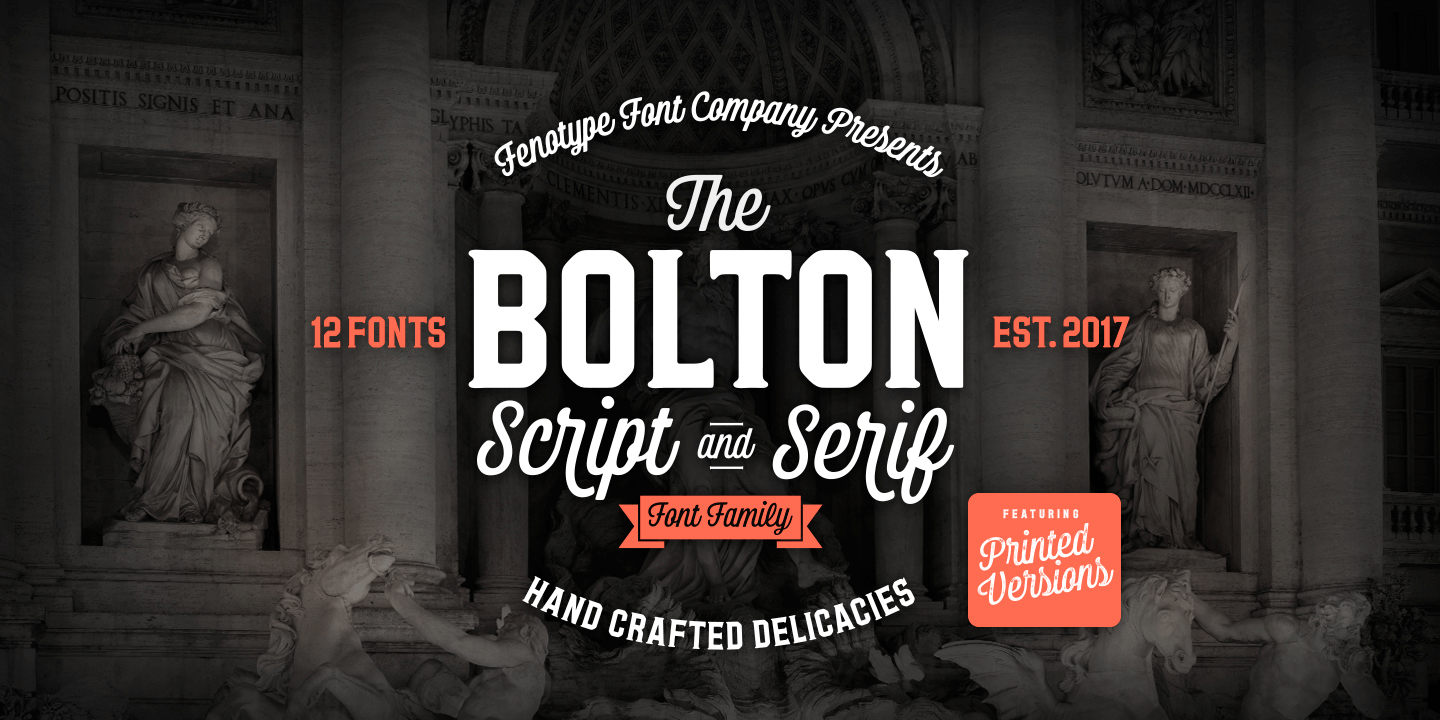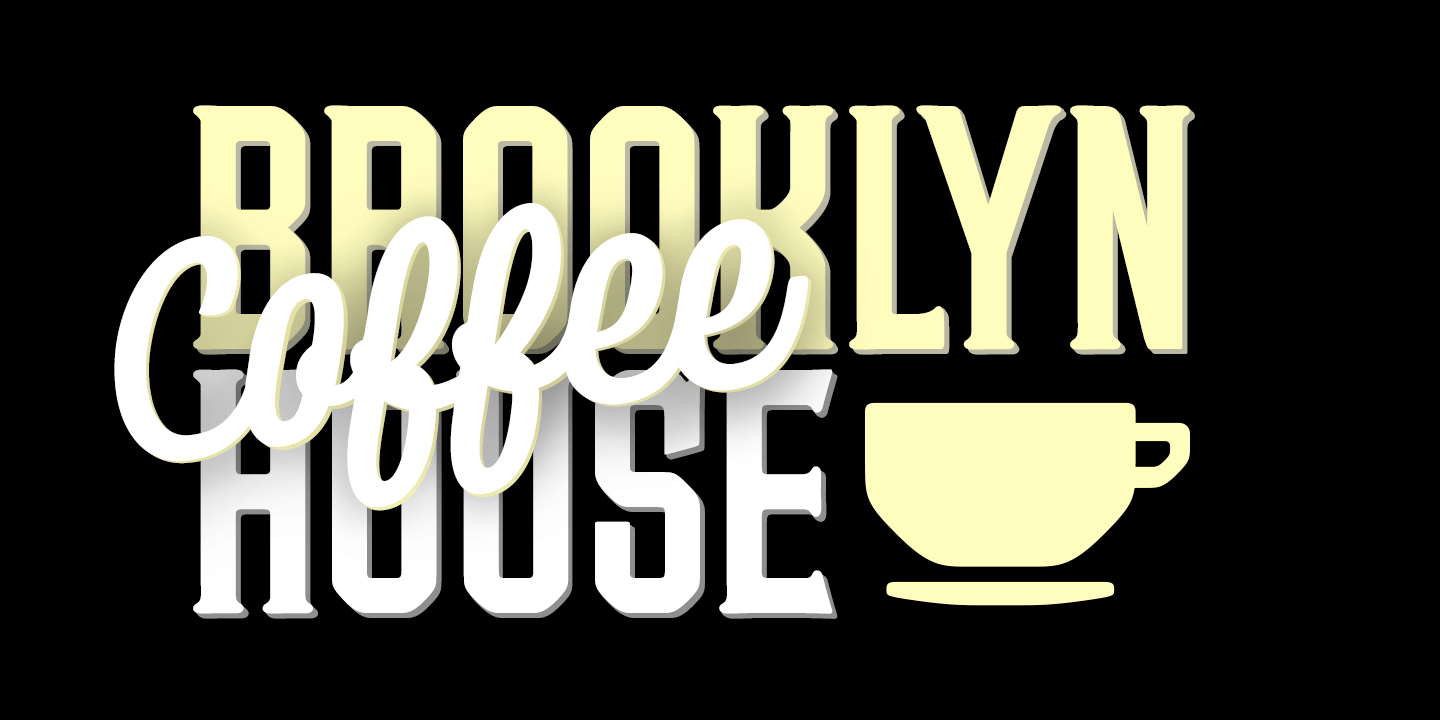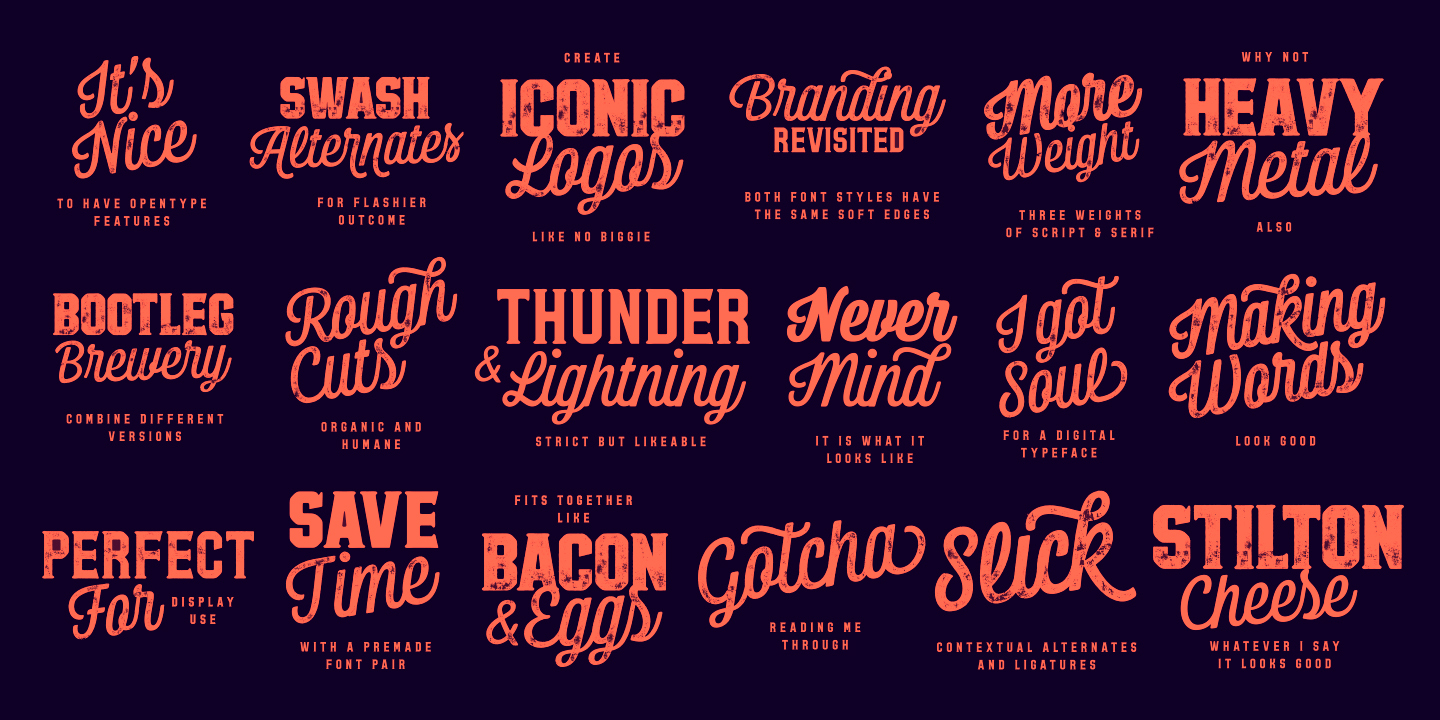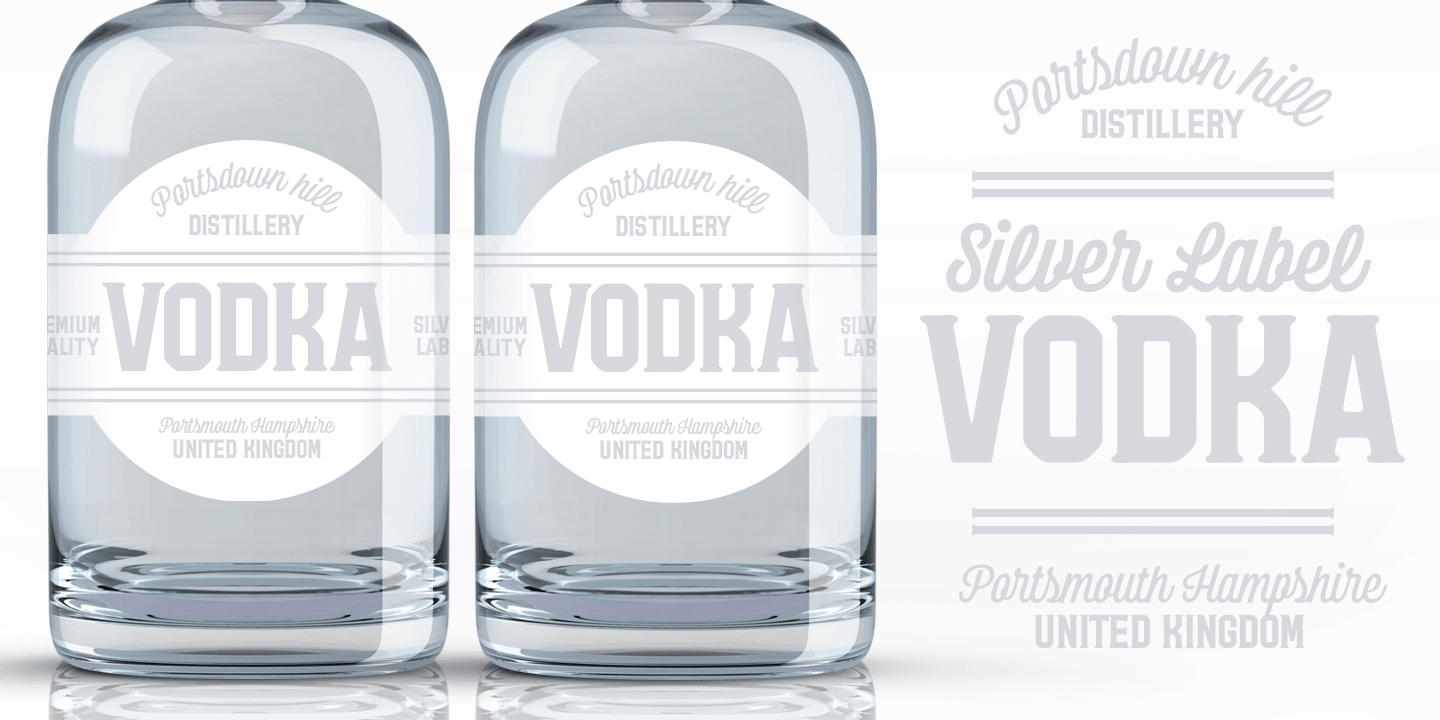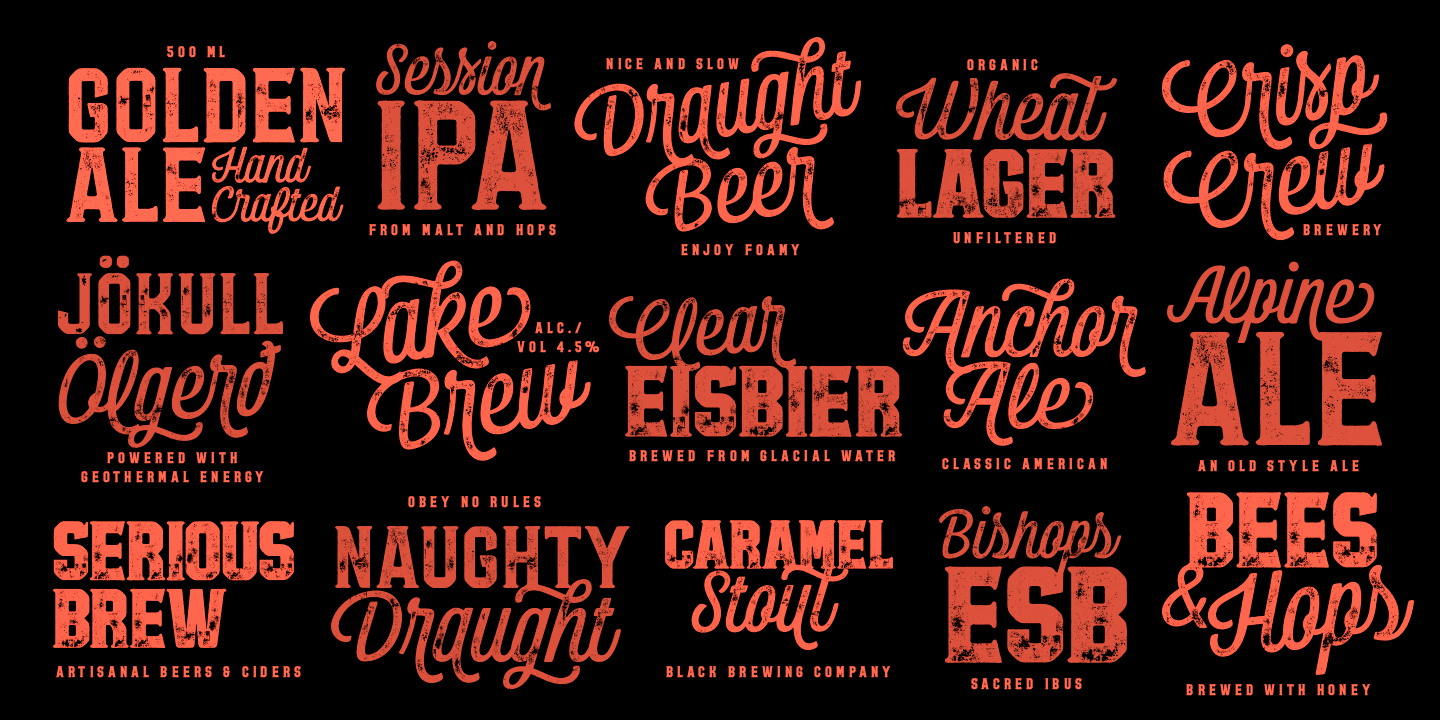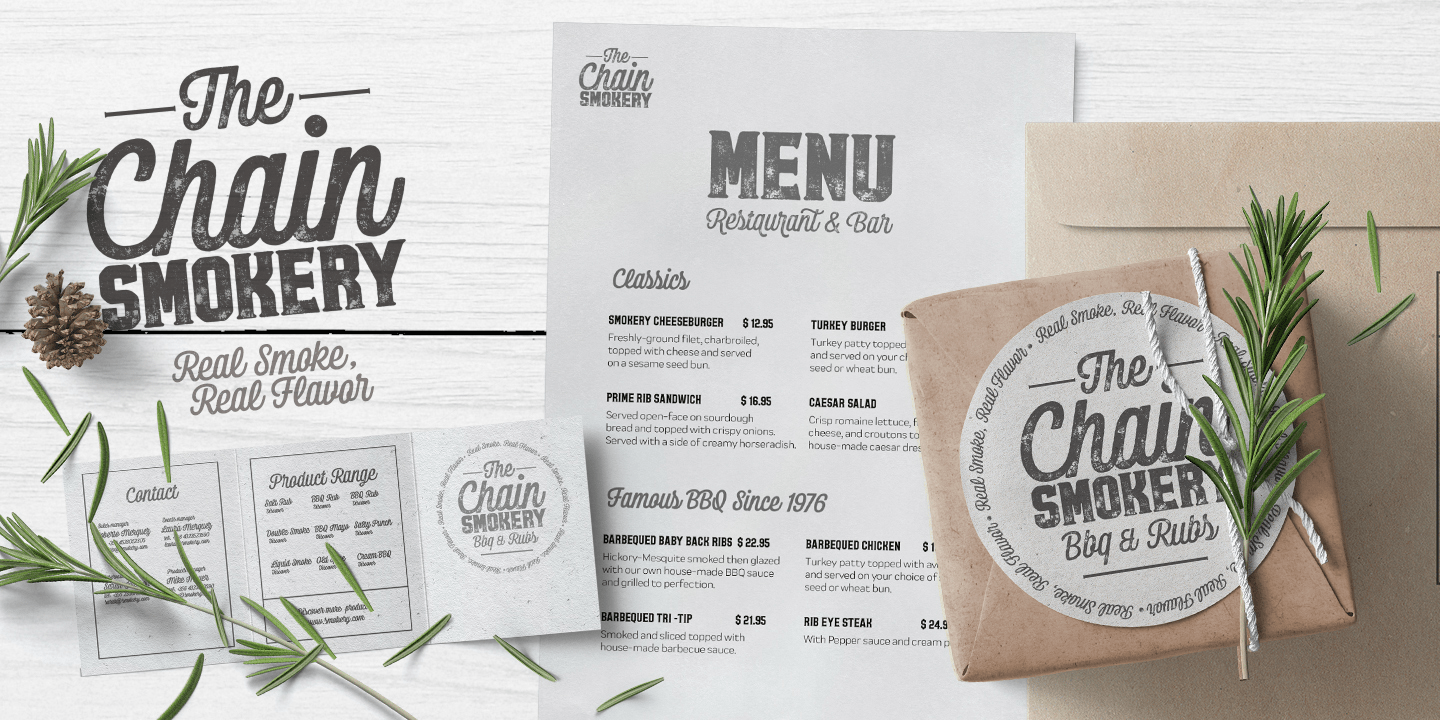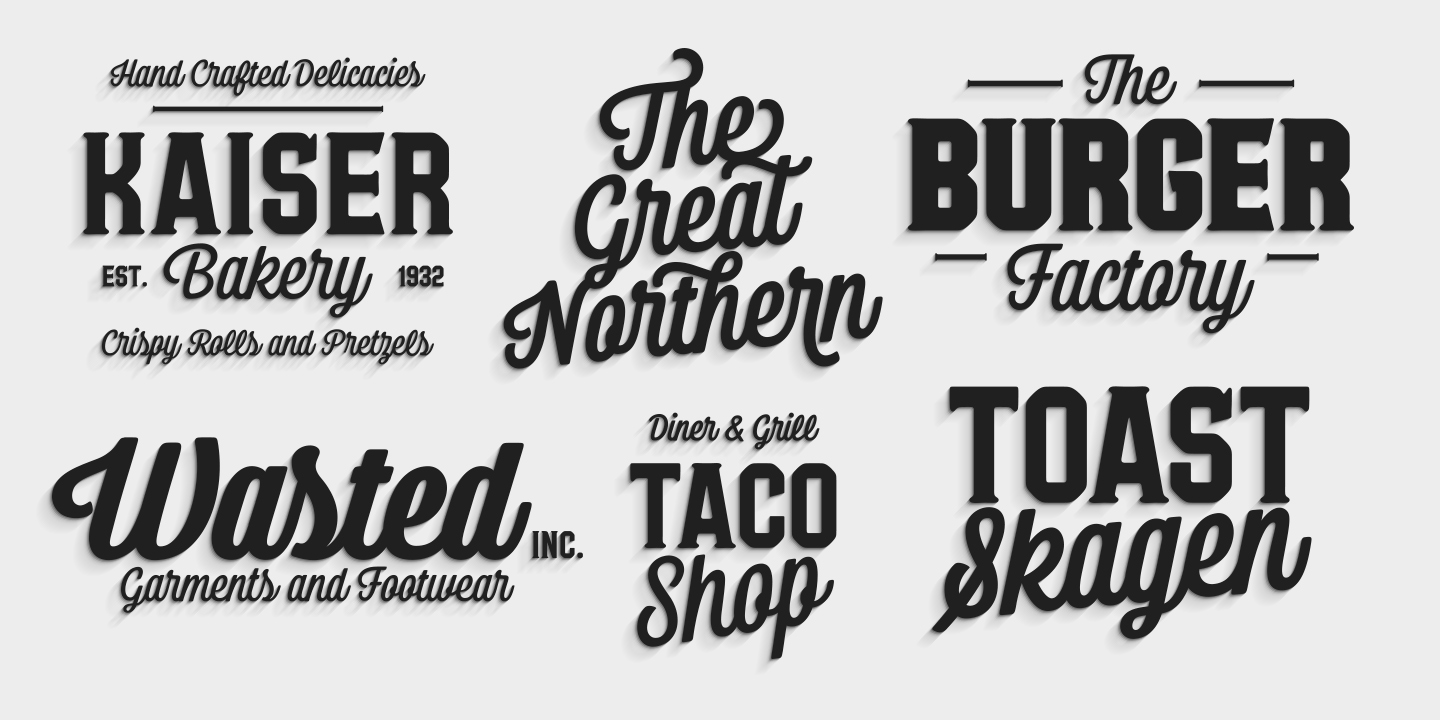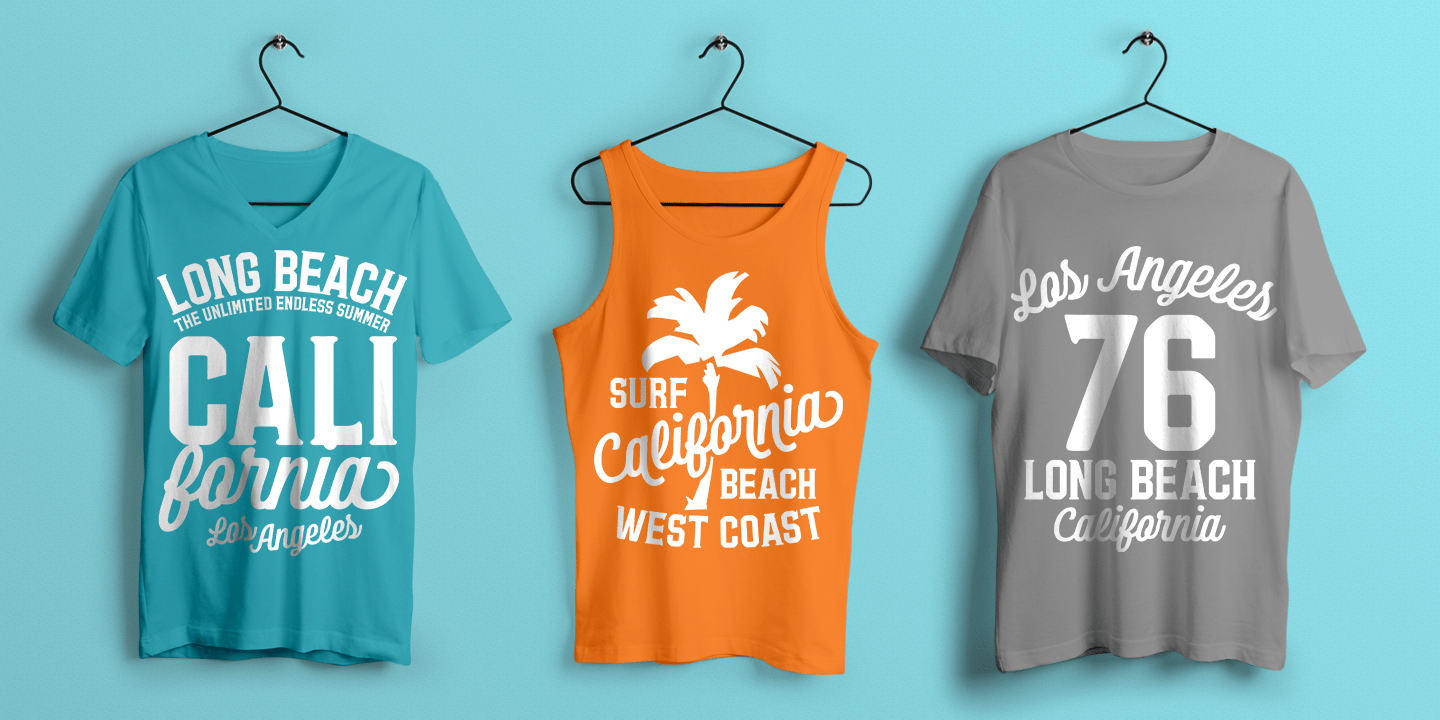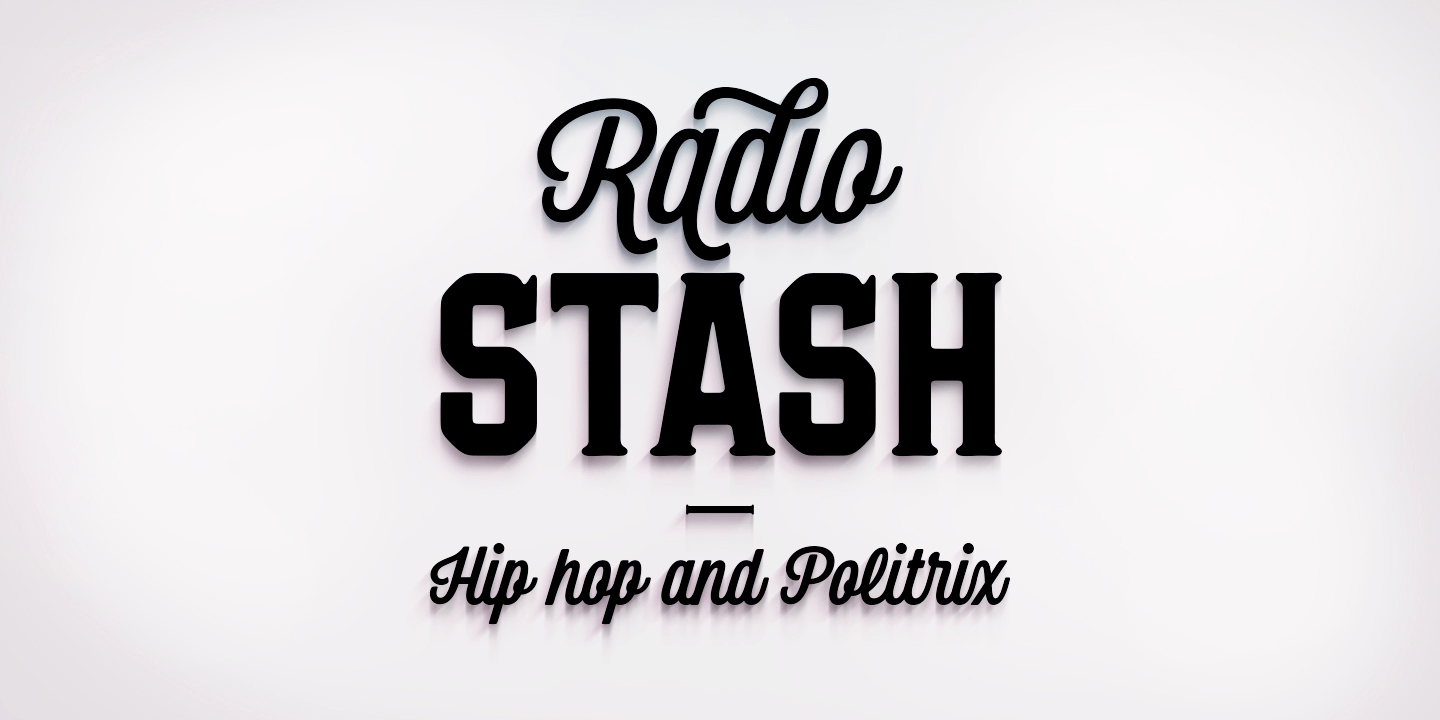
Bolton
Meet Bolton, an ambitious font pack with three weights of script, three of serif, and a pack of extras. Both script and serif fonts are designed with geometric shapes and same soft corners to fit together. Bolton Print is the same family with rough outline and wear-off texture.
Bolton is strong for creating catchy headlines and logotypes. With the whole family you can easily create a whole identity for your project. Bolton is great for branding, packaging and posters or any other kind of display use.
Bolton Script has very high x-height that create very solid word shapes. Scripts are equipped with Standard Ligatures and Contextual Alternates to keep the flow. If you need flashier letters there's a Swash Alternate for every basic character.